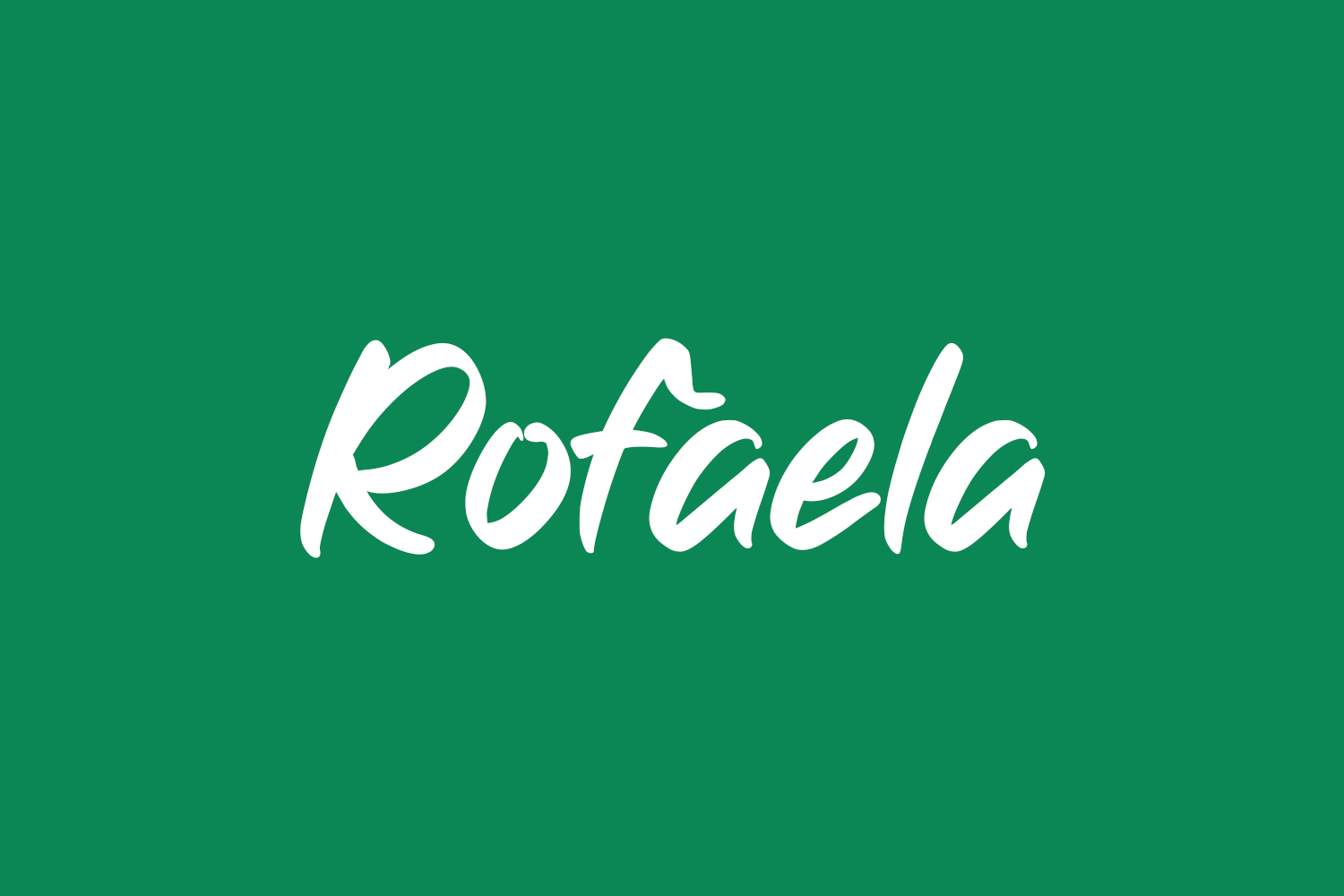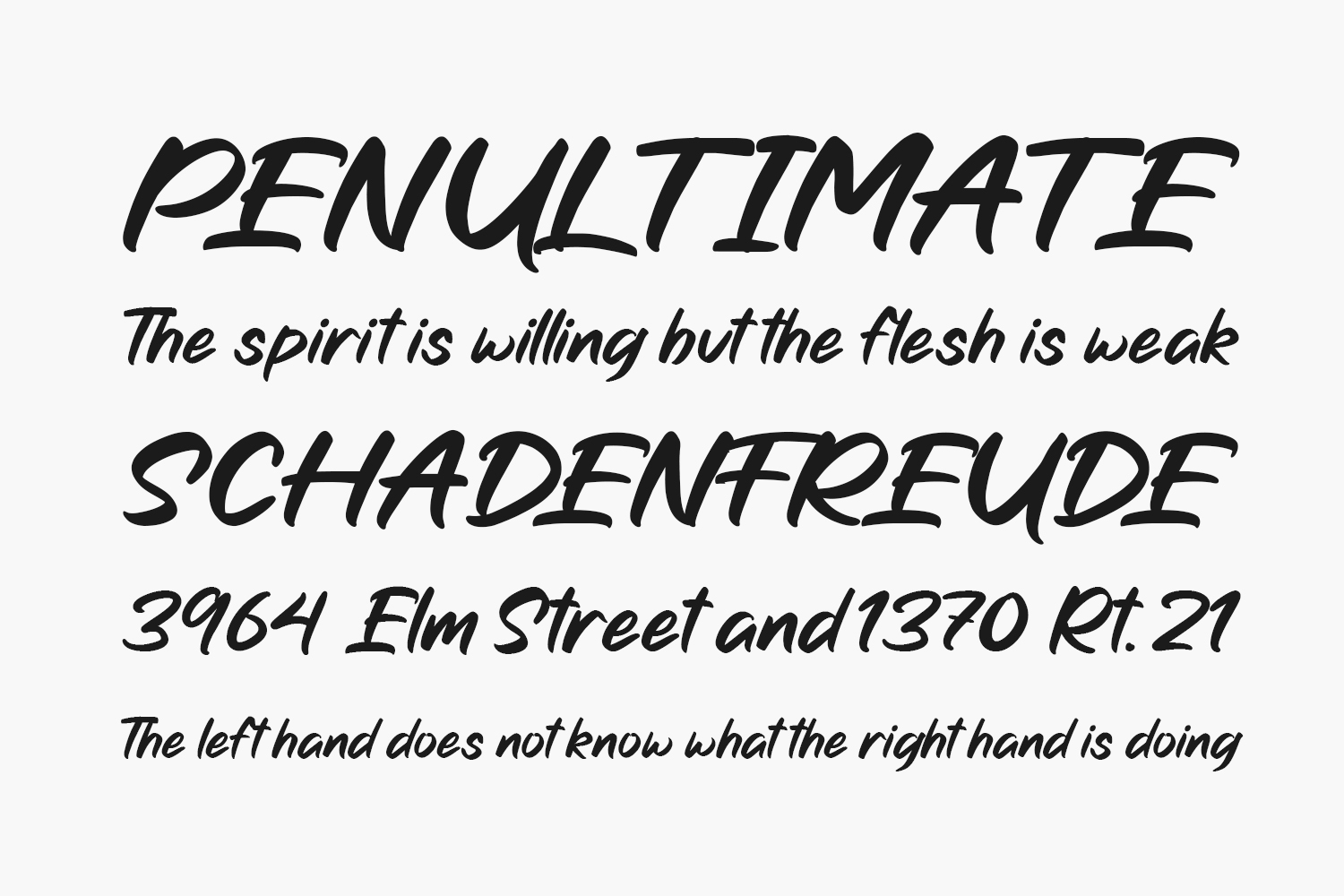
Rofaela Free Font is a vintage styled and flexible handwritten font, crafted to give your headlines and logotype projects a stylish touch. This font reads as strong, confident, and dynamic and can add tons of nostalgic character to your designs. Rofaela Free Font was designed by Hendra Pratama and is free for personal use only. Please purchase the full version for commercial use.